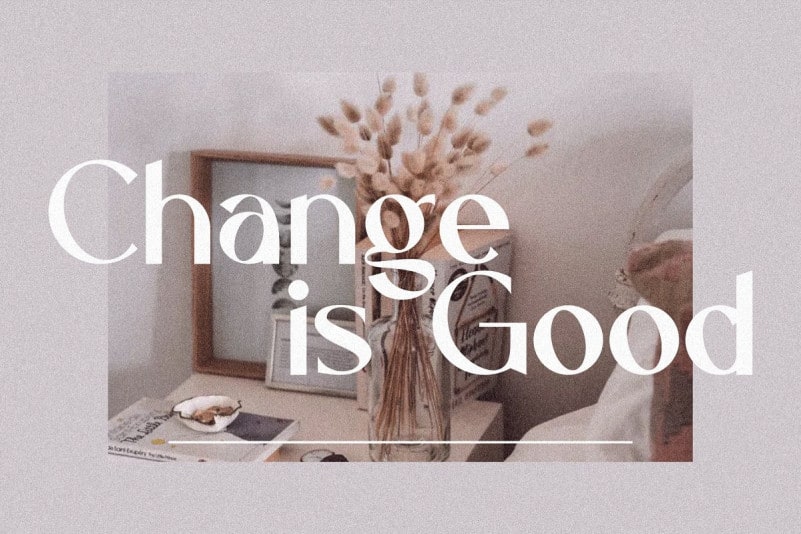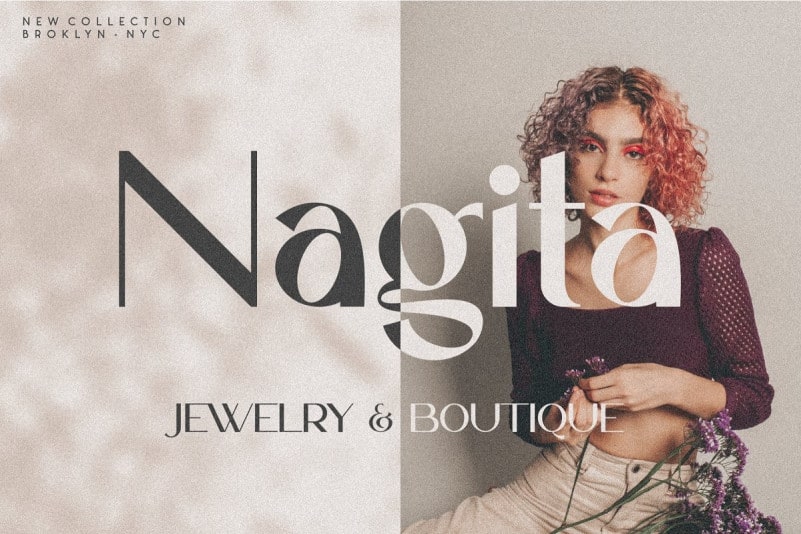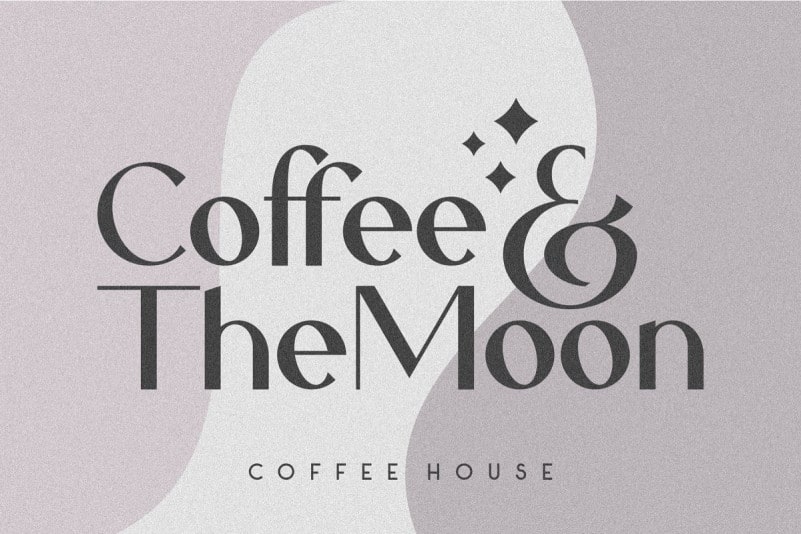
Caligna Sans Serif Font
Caligna Sans Serif Font was specially designed to be used as a display font for editorial design, packaging, branding, broadcasting purposes and for any project that requires a clean, modern font with a strong character. It’s designed and shared by 24Design Studios. A font with a unique and modern style that is luxurious, suitable for design in the business field such as fashion, food, hotel, restaurant. The font is applied to the logo, cover title, headline, label design, and others.